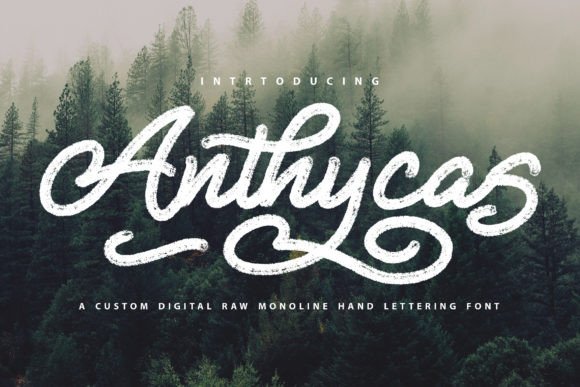
Prepare to be captivated by Anthycas, the enchanting script font that will elevate your creative projects to new heights. Picture this: a symphony of letters, each one a brushstroke of elegance, harmoniously dancing across your designs. It's like having a secret weapon in your typographic arsenal, ready to transform your words into captivating works of art.
Anthycas is more than just a font; it's a gateway to a world of creative possibilities. Whether you're crafting a captivating logo, designing an unforgettable invitation, or creating an eye-catching web graphic, Anthycas will infuse your work with a touch of grace and sophistication. Imagine the compliments flowing in as your audience is mesmerized by the beauty of your creations.
Step into a realm of boundless creativity, where Anthycas's graceful curves and flowing lines become the perfect canvas for your imagination. Unleash the power of expression as you craft stunning branding projects, heartfelt invitations, and web graphics that leave a lasting impression. Let Anthycas be your creative muse, guiding you to design masterpieces that resonate with elegance and charm.
With Anthycas, the possibilities are endless. Its versatility shines through, whether you're designing elegant cards, crafting heartfelt letters, or creating captivating social media posts. It's the perfect font to add a dash of sophistication to your blog, inject personality into your marketing materials, or simply add a touch of flair to your everyday documents.
But what truly sets Anthycas apart is its emotional resonance. It has the uncanny ability to evoke feelings of joy, warmth, and nostalgia. It's the perfect font to capture the essence of special moments, making them even more cherished and unforgettable. Let Anthycas carry your heartfelt messages, whether it's a heartfelt letter to a loved one or a heartfelt thank-you card to a valued client.